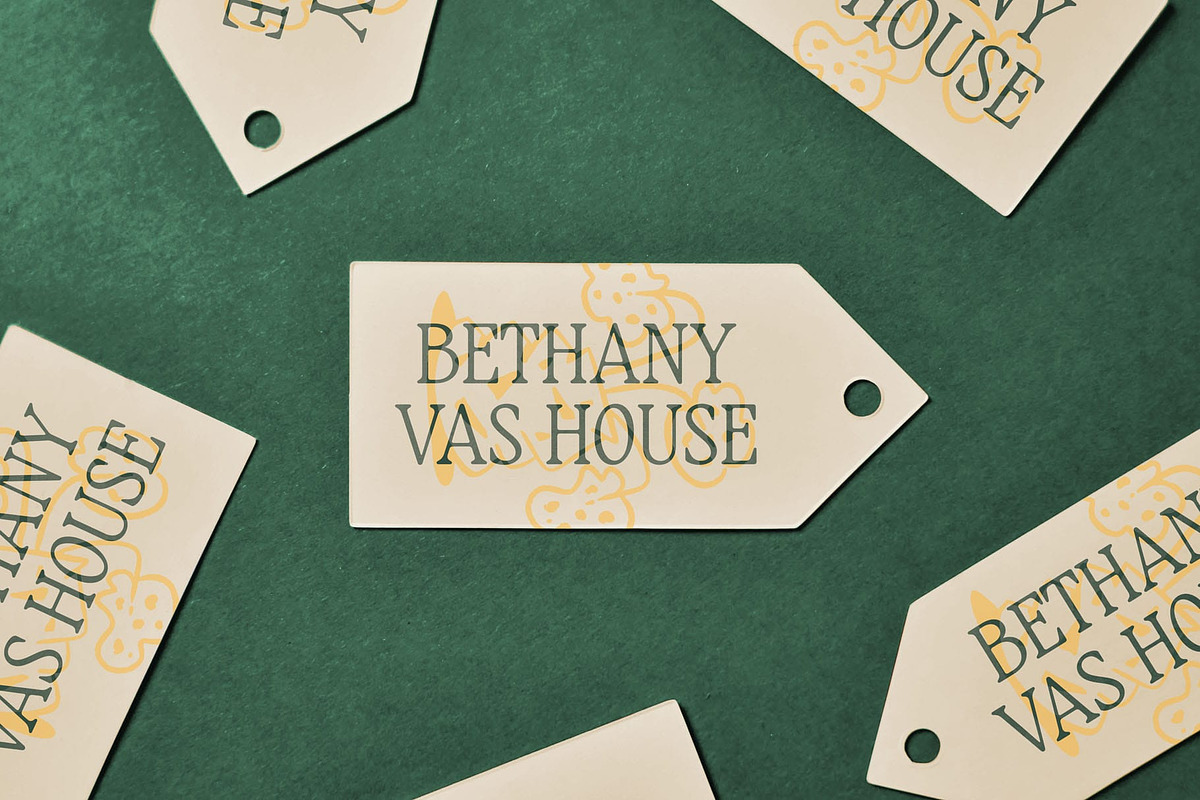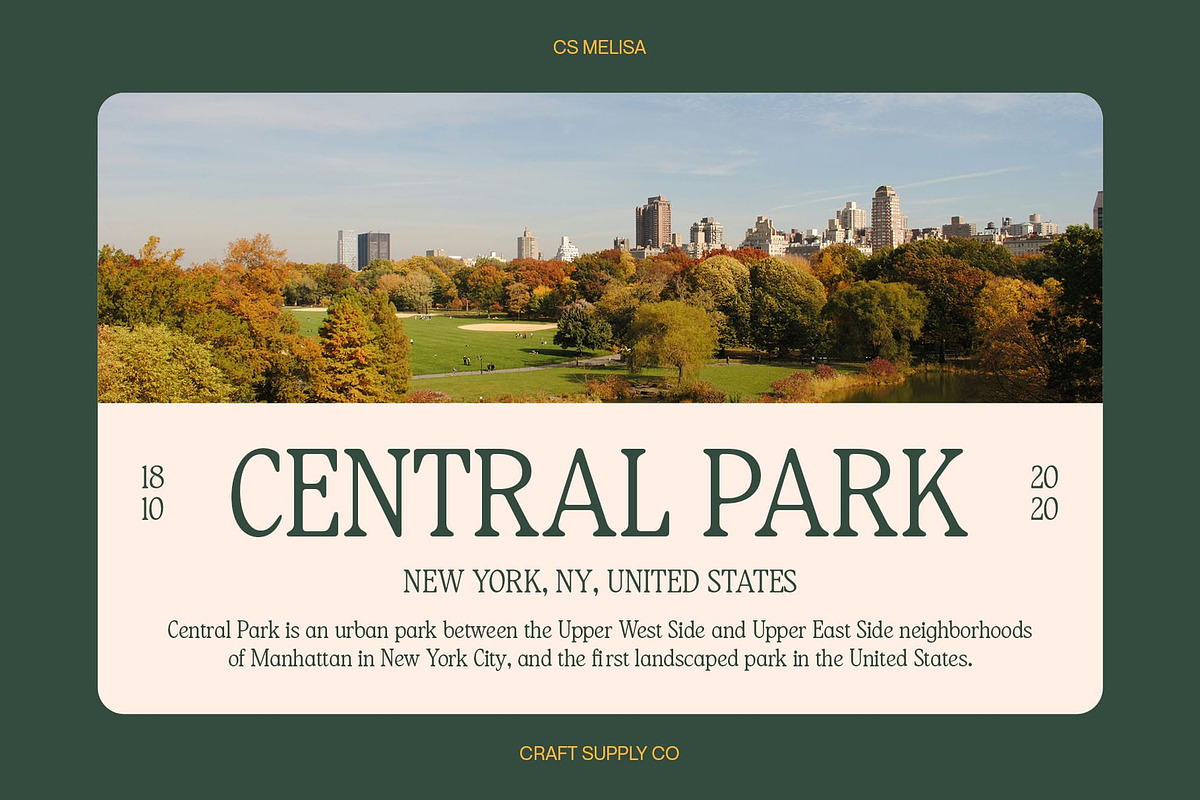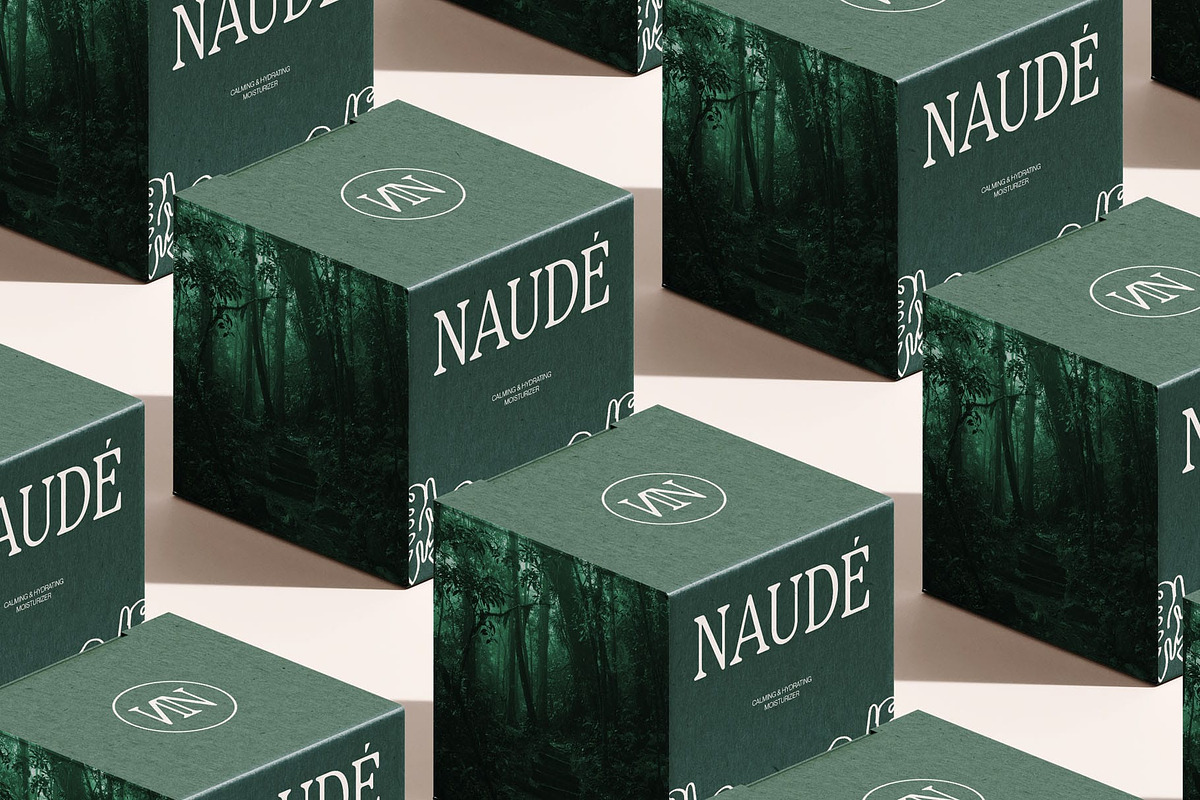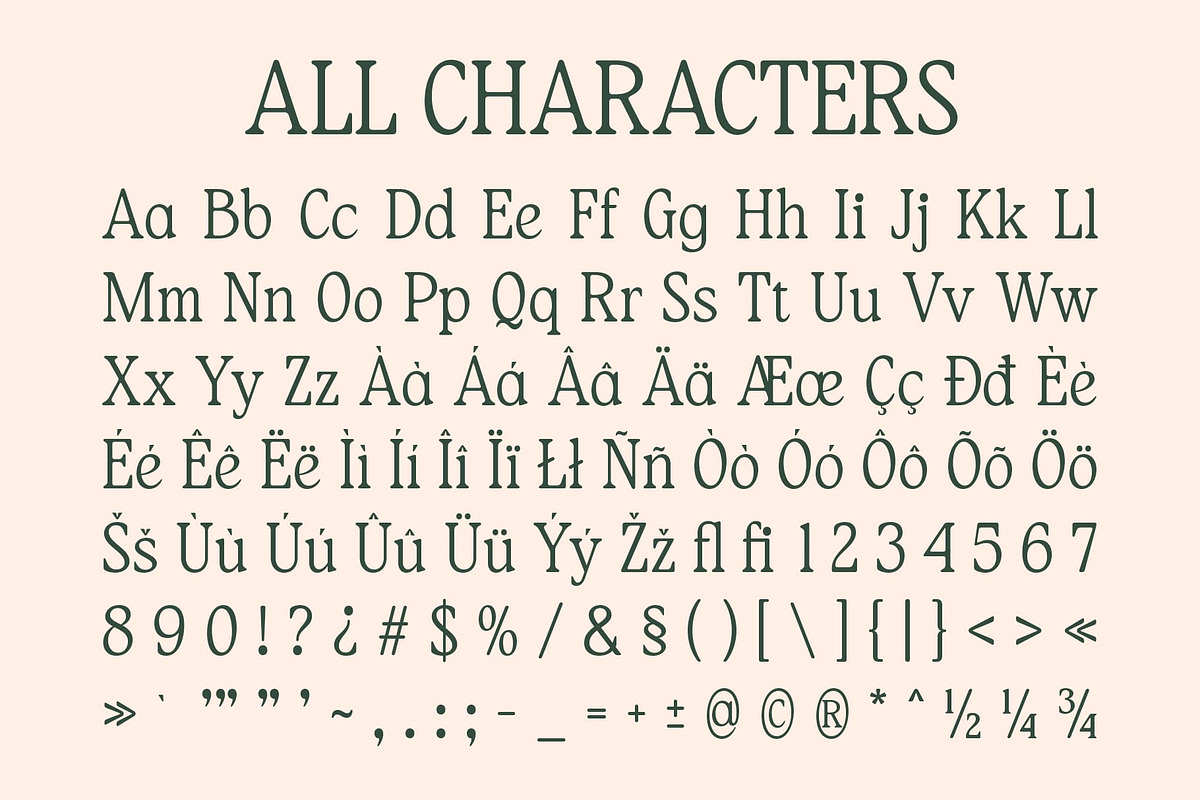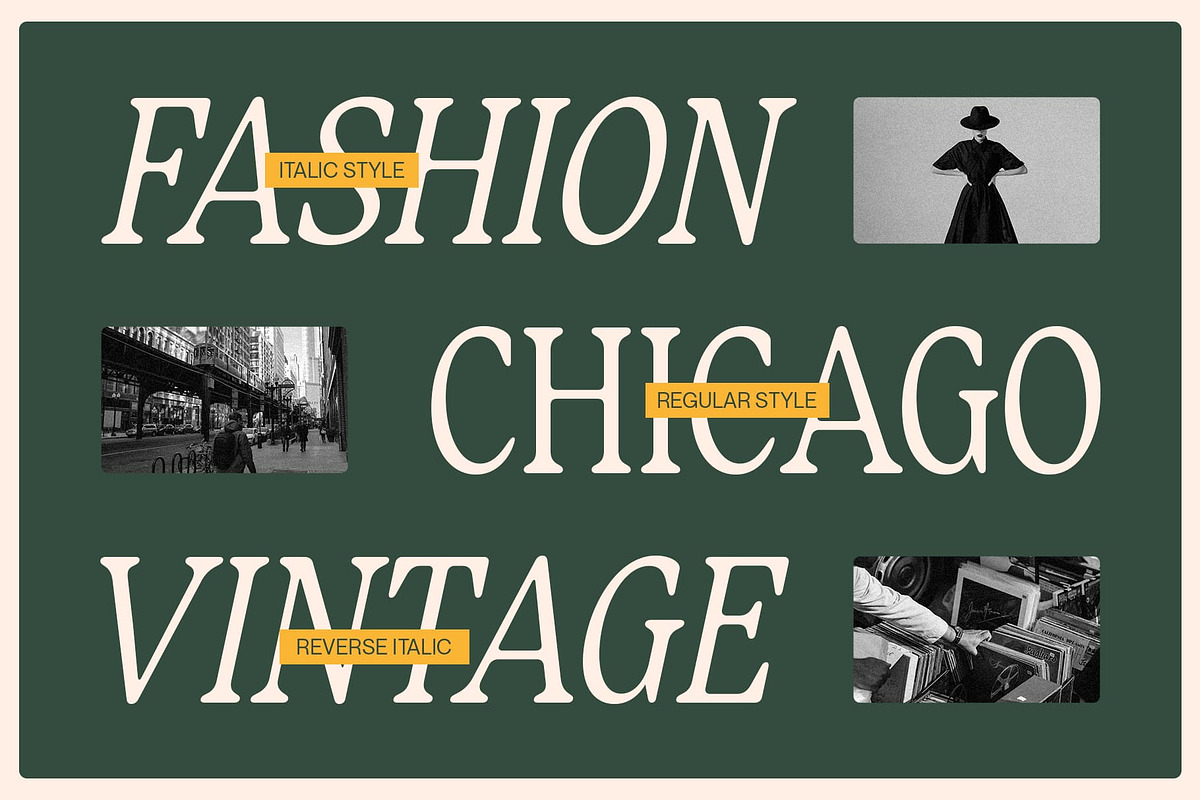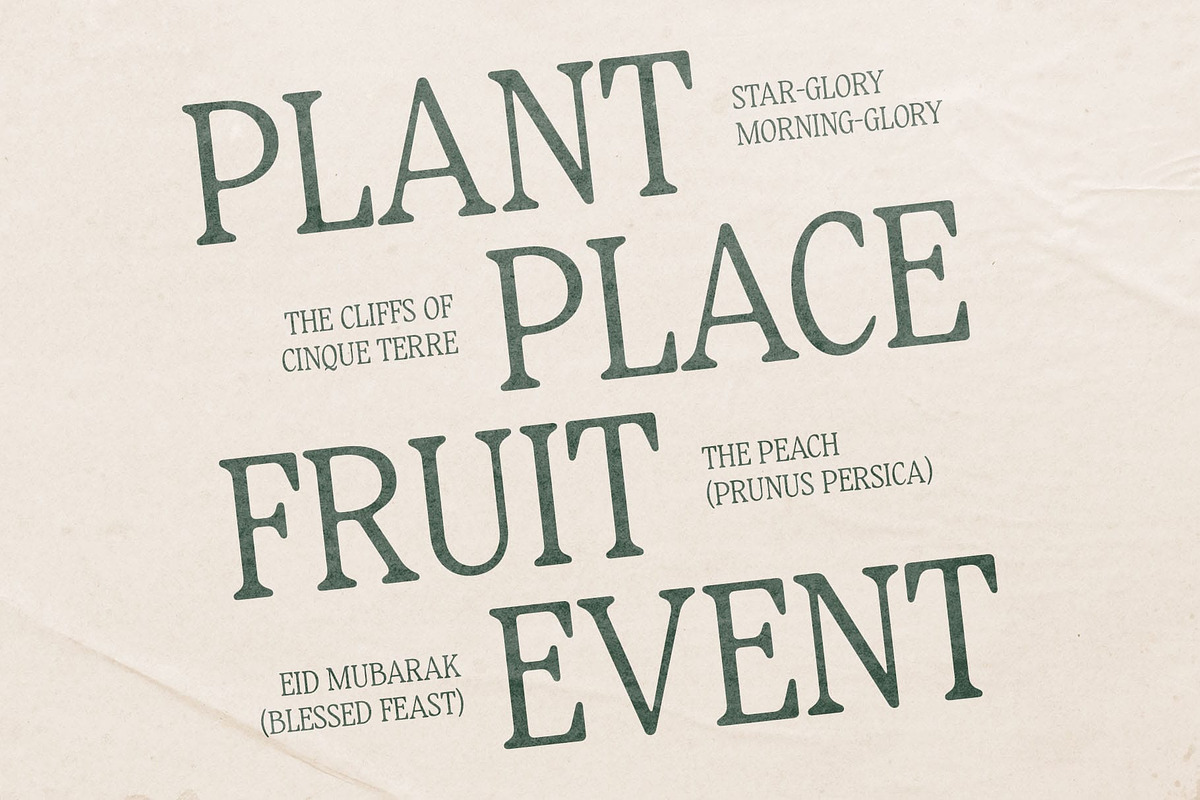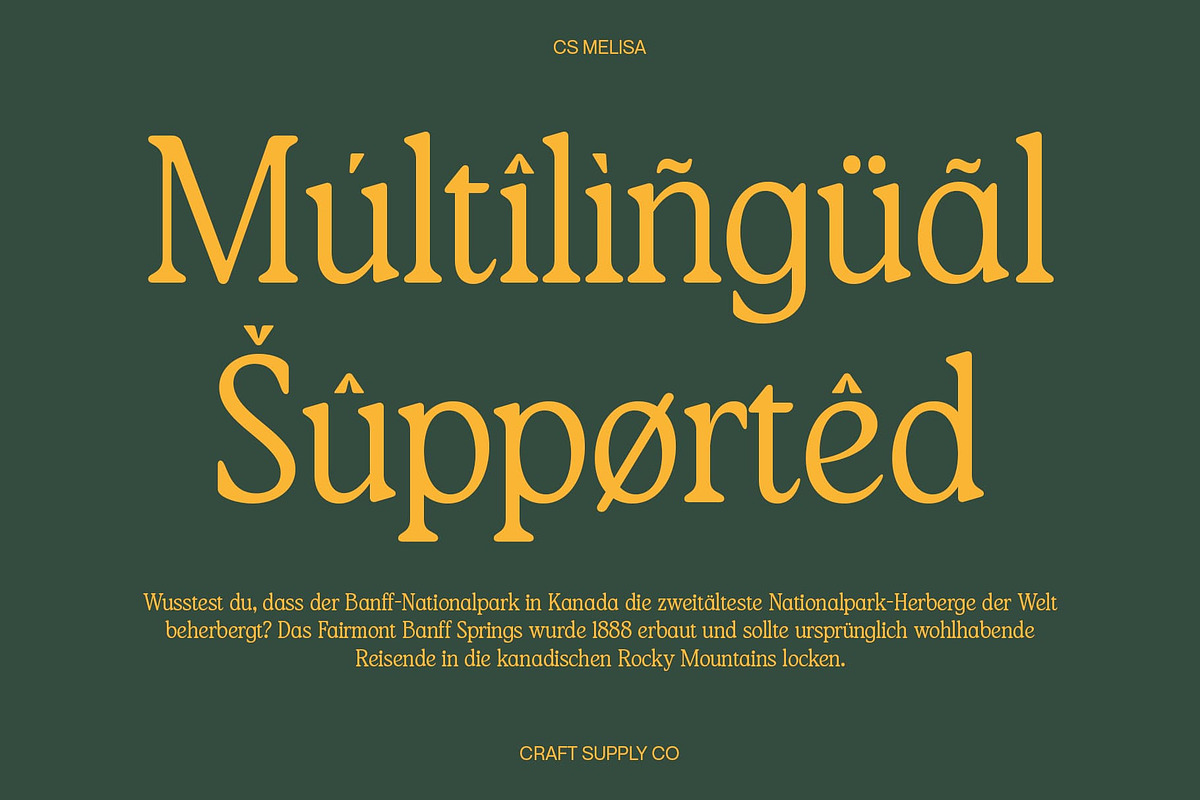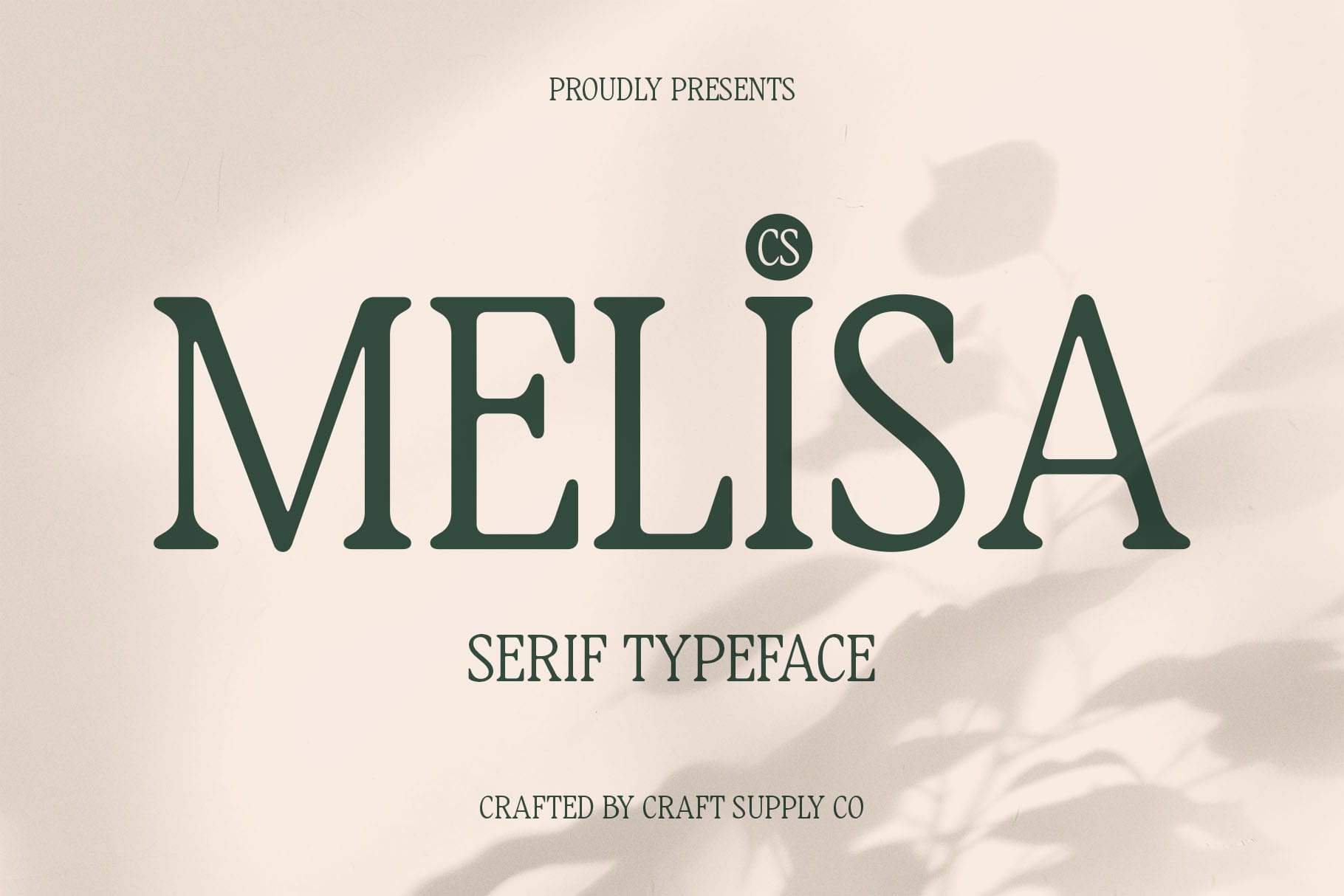
CS Melisa – Elegant Font
CS Melisa – Elegant Font: Where Grace Meets Modern Sophistication
A Refined and Timeless Modern Serif CS Melisa is a modern serif font that embodies sophisticated elegance with its slim letterforms and subtly rounded edges. Designed to strike the perfect balance between classic beauty and contemporary style, this font offers a graceful and polished appearance suited for high-end design projects.
Soft Yet Authoritative Aesthetic With its fine details and delicate proportions, CS Melisa maintains a gentle yet commanding presence. The subtle curves add a touch of warmth, while the sharp serifs reinforce a sense of refinement, making it perfect for luxury branding, high-fashion editorials, and upscale invitations.
Perfect for Sophisticated Design Applications CS Melisa is ideal for wedding invitations, premium packaging, magazine headlines, and elegant logos. Its versatile and timeless appeal ensures that it enhances both digital and print media, bringing a sense of professionalism and luxury to every project.
A Font for Those Who Appreciate Elegance Designed with attention to detail and a focus on aesthetics, CS Melisa is the go-to choice for designers who want to convey prestige, beauty, and modern elegance. Whether you’re creating a refined brand identity or an exquisite editorial layout, this font delivers a sophisticated and unforgettable visual experience.